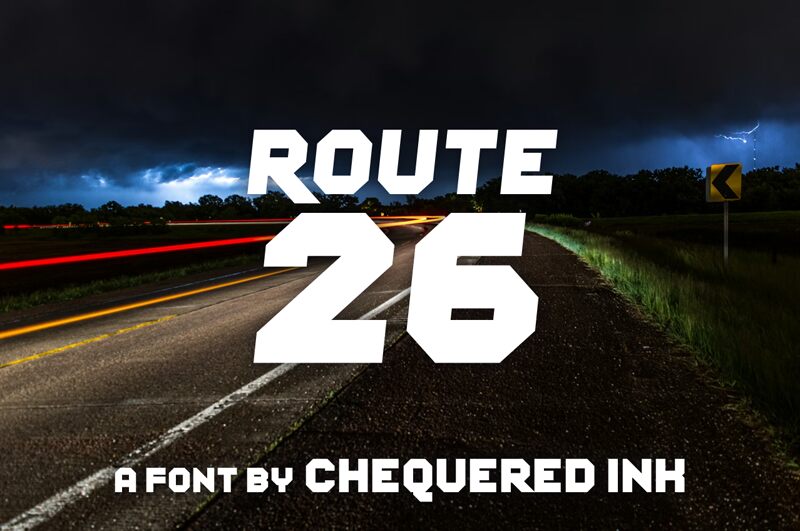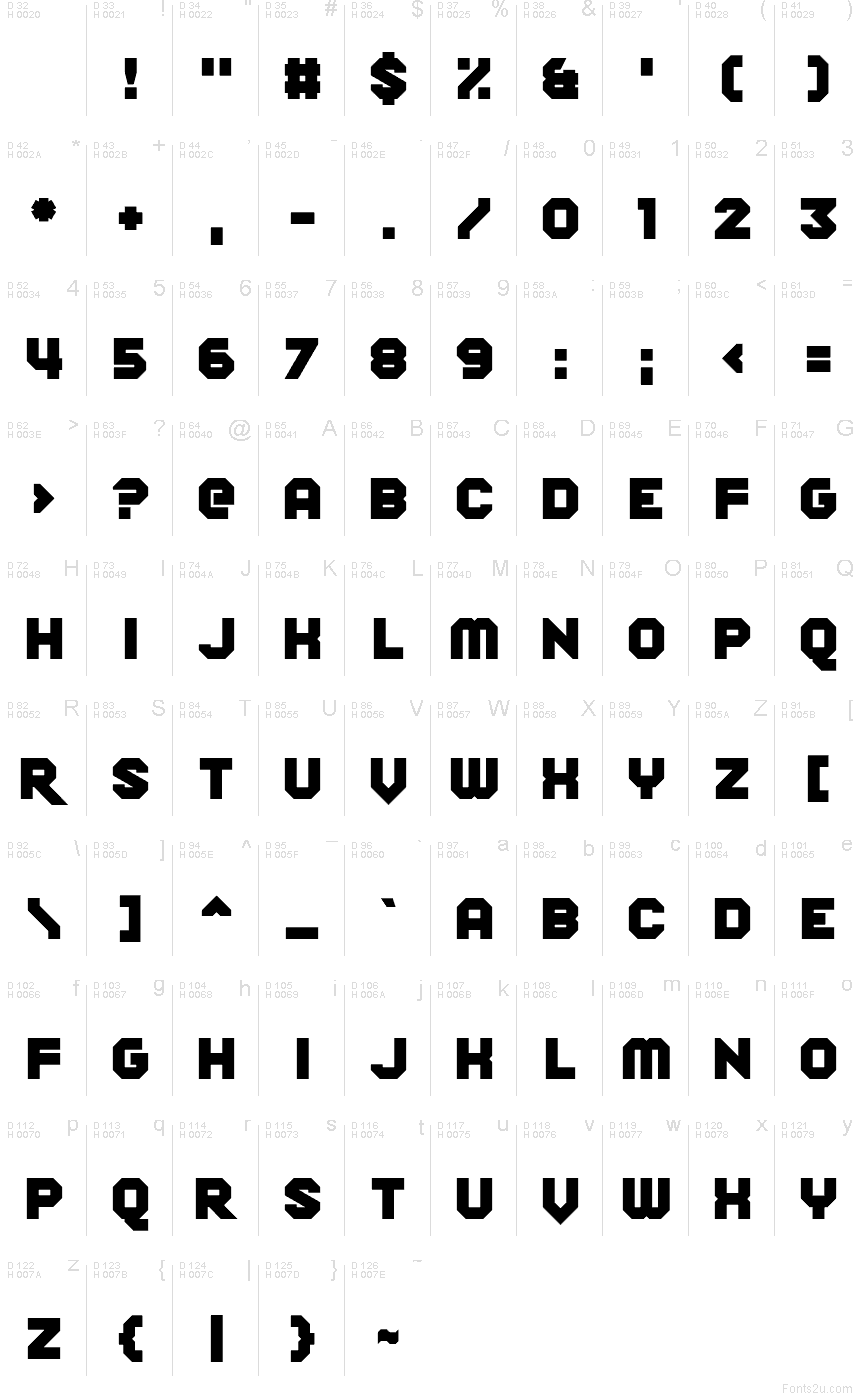
Route 26 Straight
Route 26 Straight font by Chequered Ink is a free techno display typeface from the Route 26 family, built from bold, straight-edged shapes that feel like they’ve been cut from metal plates. Its chunky, angular forms and tight rhythm hit that sweet spot between arcade nostalgia and futuristic UI, giving text a strong, engineered presence. The squared-off curves and heavy weight make every word feel like a logo, even at a glance.
Using Route 26 Straight, you can brand gaming channels, esports teams, sci-fi posters, racing event graphics, tech merch, and bold app splash screens with a consistent, industrial energy. This free font shines on short headlines and wordmarks where impact matters more than subtlety. For balance, pair it with a clean geometric sans in body copy, and keep plenty of spacing around it so those sharp contours can breathe.